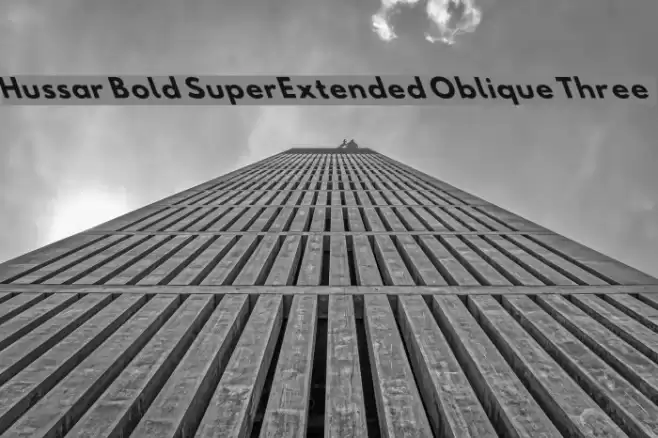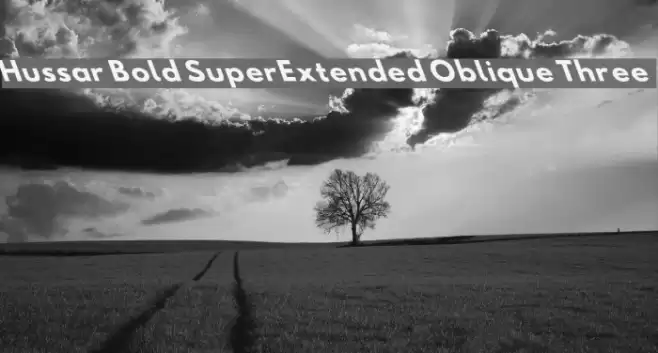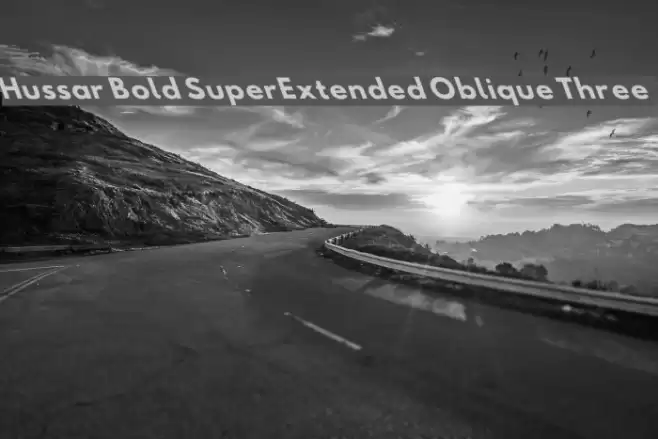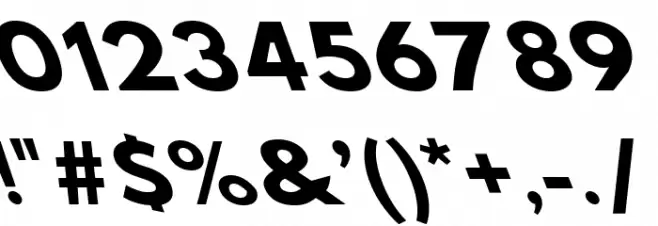
Hussar Bold SuperExtended Oblique Three Font
Hussar Bold SuperExtended Oblique Three Description
This font features a bold and dynamic style with a strong presence, characterized by its super extended and oblique design. The letters are wide and slightly slanted, giving a sense of movement and energy. The bold weight enhances its visibility, making it suitable for impactful headlines and attention-grabbing designs. The characters are well-defined with a consistent stroke width, providing a modern and clean appearance. The font includes a full set of uppercase and lowercase letters, numerals, and a variety of special characters, ensuring versatility in various design applications.
A bold, super extended, and oblique font with a modern and dynamic style from Uncategorized fonts.
- Proposed Projects: Ideal for branding, advertising, posters, and any project requiring a strong visual impact.
- Width: Expanded